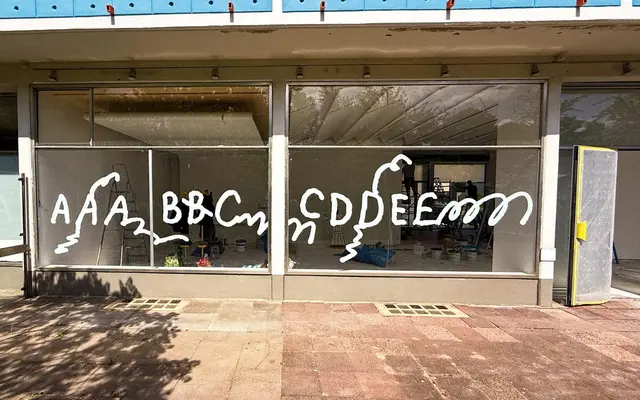
ABC Stefan
Dinamo Typefaces · Stefan Marx, Johannes Breyer, Erkin Karamemet, Tanja Modraković
A digitisation of Hamburg-based artist Stefan Marx's handwriting, featuring four alternates per character and a built-in randomiser that reproduces the natural inconsistency of writing by hand.
Each letter, figure and punctuation mark was drawn four times by Stefan Marx, and a randomiser built into the font software selects between variants as you type, avoiding the mechanical repetition that betrays most digital handwriting faces. The family splits into three subfamilies — Simple, Bubble and Bubble Tight — plus an emoji pack of standard Apple icons redrawn in Marx's hand. Lightning bolt swashes and a strikethrough mistake function add further personality.
A direct digitisation of an artist's handwriting, with three stylistic subfamilies and a built-in randomiser to replicate natural inconsistency; classifies squarely as a handwriting script.